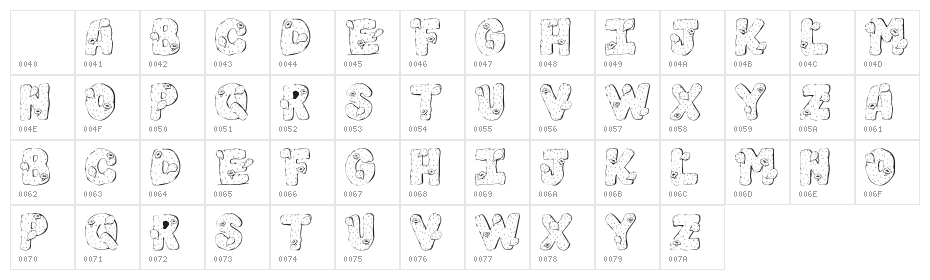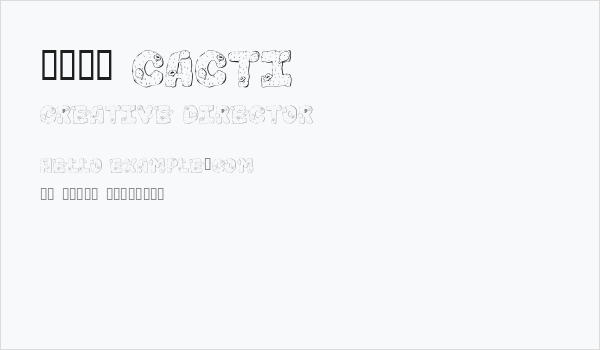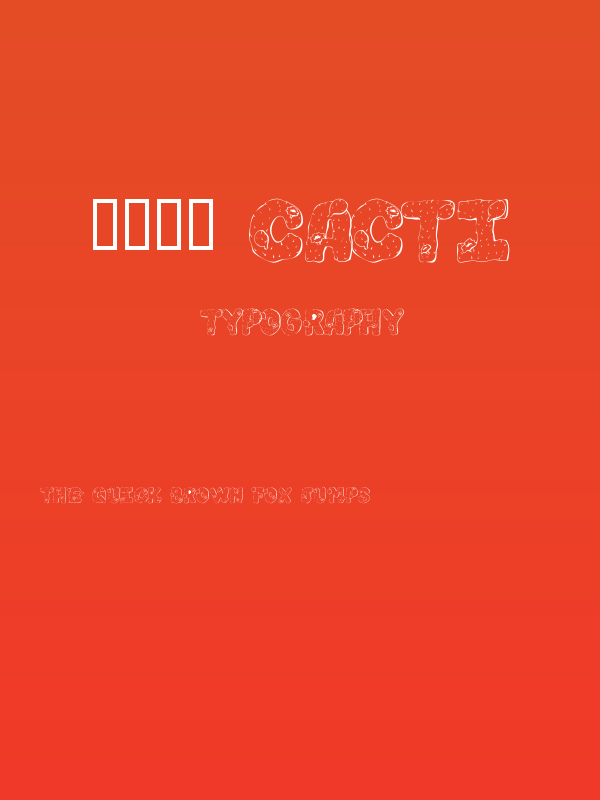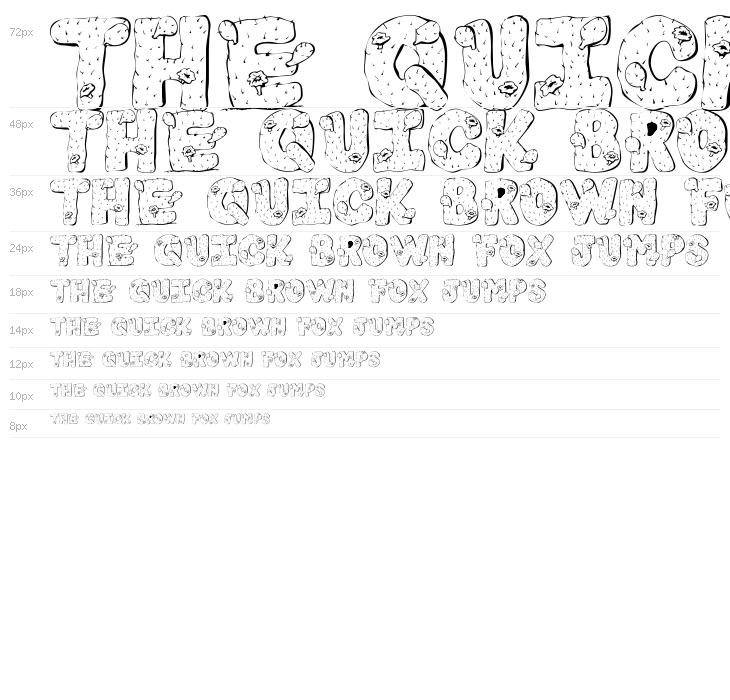
101! Cacti Font
101! Cacti Description
This playful and decorative font features a unique cactus-inspired design, with each letter resembling a cartoonish cactus plant. The characters are bold and rounded, with small spikes and textured details that mimic the surface of a cactus. The font is highly stylized, making it ideal for projects that require a fun and whimsical touch. The uppercase letters are consistent in height, while the lowercase letters maintain a similar style, ensuring readability. The font's quirky nature makes it stand out, perfect for creative and informal applications.
Proposed ProjectsIdeal for children's books, party invitations, posters, and branding for playful or nature-themed products.